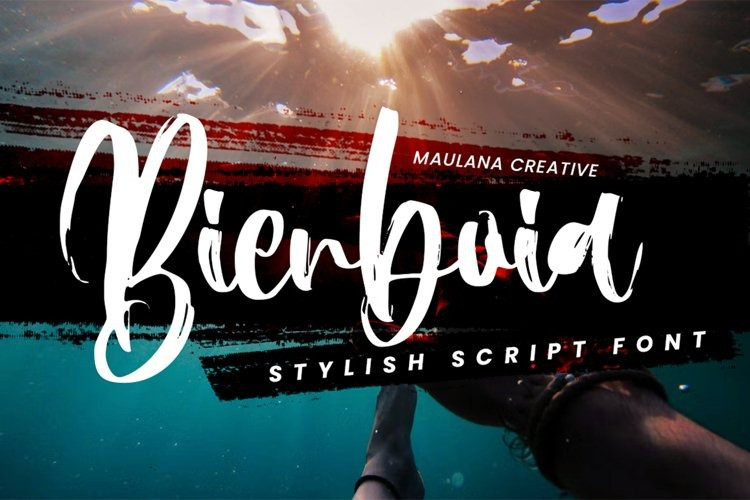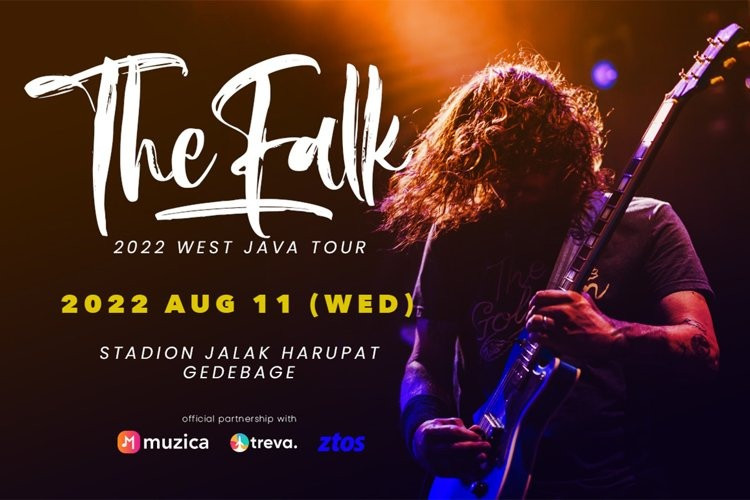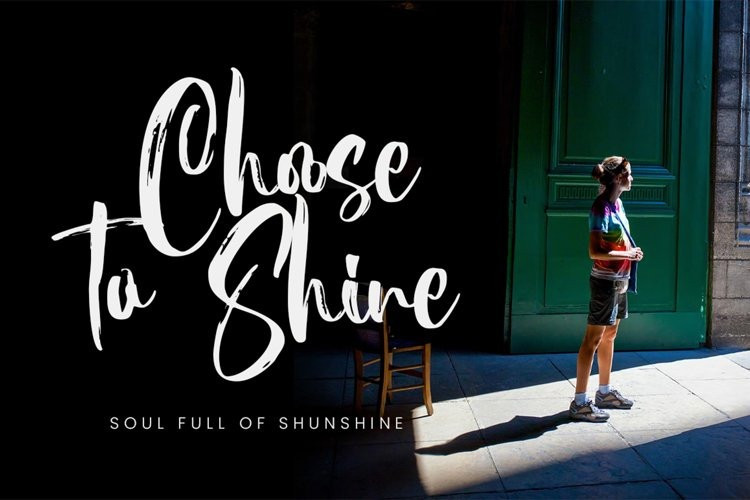
Bienboia Font
Bienboia Bold Font . Strong character with a bit of ligatures and alternates. To give you an extra creative work. Bienboia font support multilingual more than 100+ language. This font is good for logo design, Social media, Movie Titles, Books Titles, a short text even a long text letter and good for your secondary text font with Signature. Make a stunning work with Bienboia font.